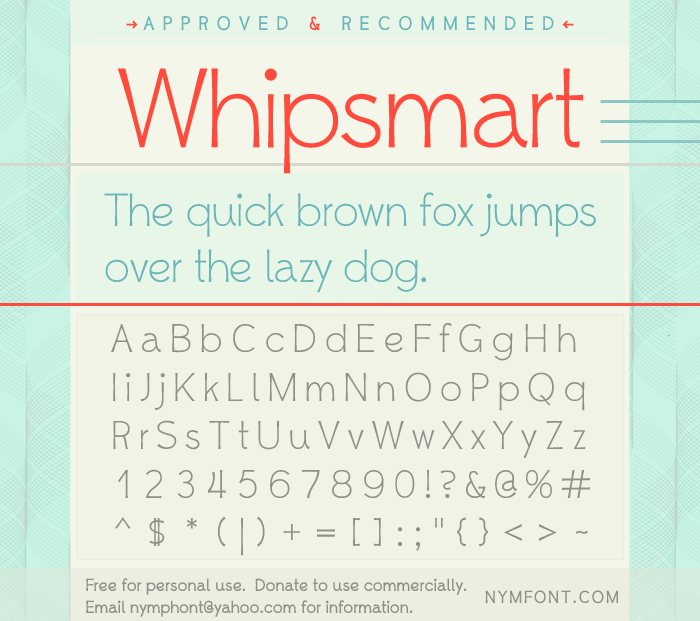
Whipsmart Font
A playful and inviting hand-tooled sans serif that doesn't take itself too seriously while simultaneously maintaining it's delightful and exacting aesthetic. Free for personal use. Donate to use commercially. Email me at nymphont at yahoo dot com for more info. ~Lauren
Nice, simple and clean.